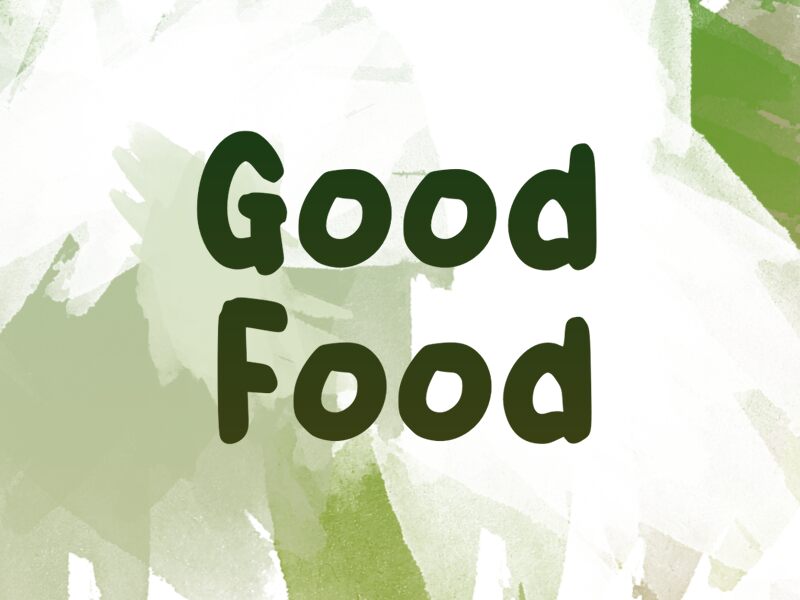
Good Food
Good Food is a bold, handwritten font designed by wep. This expressive typeface exudes a sense of warmth and authenticity, with its organic, flowing strokes and playful, irregular shapes. The font's distinct personality lends itself effortlessly to a wide range of design applications, from food packaging and menus to branding and editorial layouts. Its unique character and energetic aesthetic make it a compelling choice for projects seeking to convey a homemade, artisanal aesthetic.
The versatility of Good Food allows it to seamlessly integrate into diverse design contexts. Its bold, legible letterforms make it an excellent choice for attention-grabbing headlines, while its handwritten charm lends itself beautifully to product labels, recipe cards, and other food-related designs. The font's versatility extends to various mediums, from print to digital, making it a valuable asset for designers seeking to create engaging, visually-driven content.